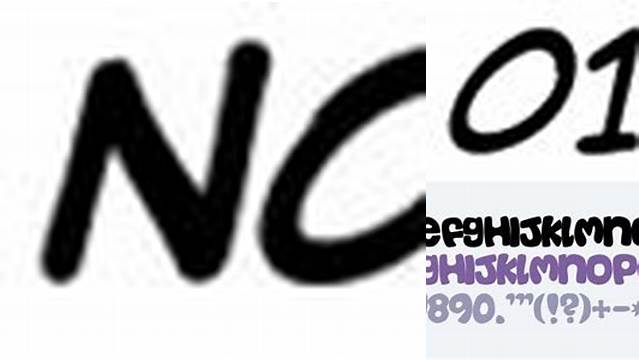
Hey guys! Are you on the hunt for a font that screams casual, bold, and italic? Look no further! We're diving deep into the world of the Norb font, a fantastic choice for anyone looking to add a touch of personality and flair to their designs. And the best part? You can snag it for free! Let's explore everything about the Norb font – from its unique characteristics to where you can download it and how to use it effectively. This guide will help you understand how to use the font to create stunning designs.
What Makes Norb Font Special?
Alright, so what's the deal with the Norb font? What makes it so special that we are all hyped about it? Well, the Norb font is a versatile typeface that beautifully blends boldness with a relaxed, informal style. Its italic slant adds a dynamic feel, giving your text a sense of movement and energy. The font's design is clean and modern, making it suitable for a wide range of projects. It's not overly fussy or complicated, which means it's easy to read and understand, making it perfect for display text, headlines, and even short paragraphs. This font has the power to transform your design.
Its versatility is a huge draw. Whether you're designing a website, creating social media graphics, crafting a logo, or working on a personal project, Norb can fit the bill. It's particularly well-suited for projects that aim to convey a sense of friendliness, approachability, and creativity. Think of it as the go-to font when you want your message to feel less formal and more inviting. The combination of bold and italic gives it visual impact, ensuring your text will grab attention without being overbearing. The Norb font strikes that perfect balance. In terms of character, the Norb font exudes confidence without being arrogant. It's friendly without being childish, and stylish without being pretentious. This makes it an excellent choice for businesses and individuals who want to project a modern, relatable image. The font is also highly legible, which means that your audience can easily read your text, even at smaller sizes. This is a crucial factor for any design, as it ensures that your message is clear and easy to understand. The Norb font, therefore, is more than just a typeface; it's a communication tool that enhances your design and makes your content accessible and engaging. This font’s characteristics make it the perfect choice for any project where you want to make a bold and stylish statement. The subtle design nuances make it distinct from other fonts.
Norb font comes in various weights and styles. This allows for versatility in design. Its legibility on different screens is its best feature. It supports several languages making it a great font choice for international brands. The font is a design element that evokes emotion and personality in design. It helps set the tone of the design project.
Using Norb Font in Your Designs: Best Practices
Alright, you've got the font, and you're ready to roll! But how do you actually use Norb font in your designs to make them pop? Let's go over some best practices to ensure your designs look amazing. When using Norb, consider the context of your project. The font's casual and friendly vibe makes it ideal for branding, social media posts, and website headlines. Avoid using it for large blocks of body text, as the italic and bold styles can become tiring to read for extended periods. Instead, reserve it for headings, call-to-action buttons, or short, impactful phrases. Experiment with size and weight. Play with different font sizes to see how Norb performs. In many cases, a slightly larger size will help maintain its impact and readability. Similarly, try using different weights (if available) to emphasize certain words or phrases. Bold weights work great for headlines, while regular weights can complement them. When it comes to color, Norb looks fantastic in a wide range of colors. However, to get the most out of it, make sure your text color contrasts well with your background color. This ensures readability. Avoid using it over complex backgrounds, as this will make your text hard to read. Pair Norb font with other fonts carefully. If you are designing a project that requires multiple fonts, make sure to pick a font that complements Norb. A clean, sans-serif font for body text often works great with Norb. You can also try pairing it with a simple serif font. The key is to balance the boldness of Norb with a more subdued font to create a harmonious look. When using Norb, spacing and kerning can make all the difference. Adjust the spacing between letters (kerning) and the spacing between lines (leading) to achieve optimal readability. This is especially important for italic fonts, where the slant of the letters can sometimes cause crowding. Try to maintain a consistent style throughout your design. If you're using Norb for headlines, use a consistent style for all your headings. This will create a cohesive and professional-looking design. The font supports ligatures, which can add a unique touch to your design and make it more visually appealing. Use the ligatures sparingly, so that they don't distract from the overall message. Test your designs on different devices and platforms. Ensure that Norb looks good on all devices and platforms. Test your designs to make sure they are displayed correctly. Before publishing, make sure that there aren't any rendering issues.
Norb Font in Branding and Marketing
How can the Norb font be effectively used in branding and marketing? The font can play a massive role in crafting a memorable brand identity. Its friendly, approachable, and bold nature makes it ideal for brands that want to appear modern and relatable. You can use Norb for logos, website headlines, social media graphics, and marketing materials. Using the Norb font in your logo can give your brand a strong visual identity. Make sure that the logo stands out and is easily recognizable. It's a great way to create a lasting impression on your audience. Using Norb for website headlines can instantly grab attention and communicate a brand's personality. The italic style adds a sense of movement and energy, making your website more engaging. Its versatility makes it an excellent choice for social media graphics. You can use it to create eye-catching visuals that are perfect for posts and stories. It can be used to create a consistent visual identity across all your social media platforms. You can use Norb in marketing materials to set the brand's tone and style. The font's personality can attract customers. The choice of the right font will set the brand's voice and will speak to the audience. Make sure to keep the brand's design consistent across all marketing channels. This helps create a unified brand image. This will help customers recognize the brand at first glance and create a sense of familiarity and trust. Consistent use of Norb across all your marketing channels will amplify the brand's message and personality. It will make your brand instantly recognizable. When using Norb in marketing materials, remember the target audience. Make sure your design speaks to your ideal customer. If the font is a good fit for your target audience, then it will elevate your marketing efforts. Pair Norb with images, colors, and other design elements. This will create a cohesive and visually appealing marketing campaign. The right combination will help convey your brand's message clearly and effectively. The Norb font, with its modern and friendly appearance, can significantly enhance your brand's image. This approach boosts the brand's visual impact, making it stand out in a crowded market.
Tips for Maximizing Norb Font's Impact
Want to make sure your designs using Norb are truly outstanding? Here are a few extra tips to maximize its impact. The bold and italic nature of Norb makes it perfect for grabbing attention. Use it strategically to highlight key messages, calls to action, or important dates. Don't be afraid to make your headlines bigger than your body text. Experiment with layering Norb over images. Use the font to add text on top of your images and photos. Make sure that the contrast is high enough so that the text is easy to read. Pay attention to the overall design. Consider the color palette, spacing, and layout to create a cohesive and visually appealing design. When using Norb, keep it simple. Use it sparingly, and avoid overcrowding your design with too many fonts or elements. Keep your design clean, uncluttered, and easy to read. Make sure your design speaks the same language as your brand. Use the font to reflect your brand's values and voice. The most important tip is to have fun and experiment. Design is about creativity. The best designs are the ones where the designer had fun. Do not be afraid to try new things and explore different ways to use the font. With the right approach, you can elevate your designs and make them stand out. Following these tips will help you create designs that are both visually appealing and highly effective. Embracing these strategies will unlock the full potential of the font, and it will make your design projects shine.
In conclusion, the Norb font is a fantastic choice for designers looking for a casual, bold, and italic typeface. With its versatility, readability, and free availability, it's an excellent option for a wide range of projects. So go ahead, download the Norb font, experiment with it, and see how it can transform your designs! Remember to always respect the license agreements and use the font responsibly. Happy designing, guys!